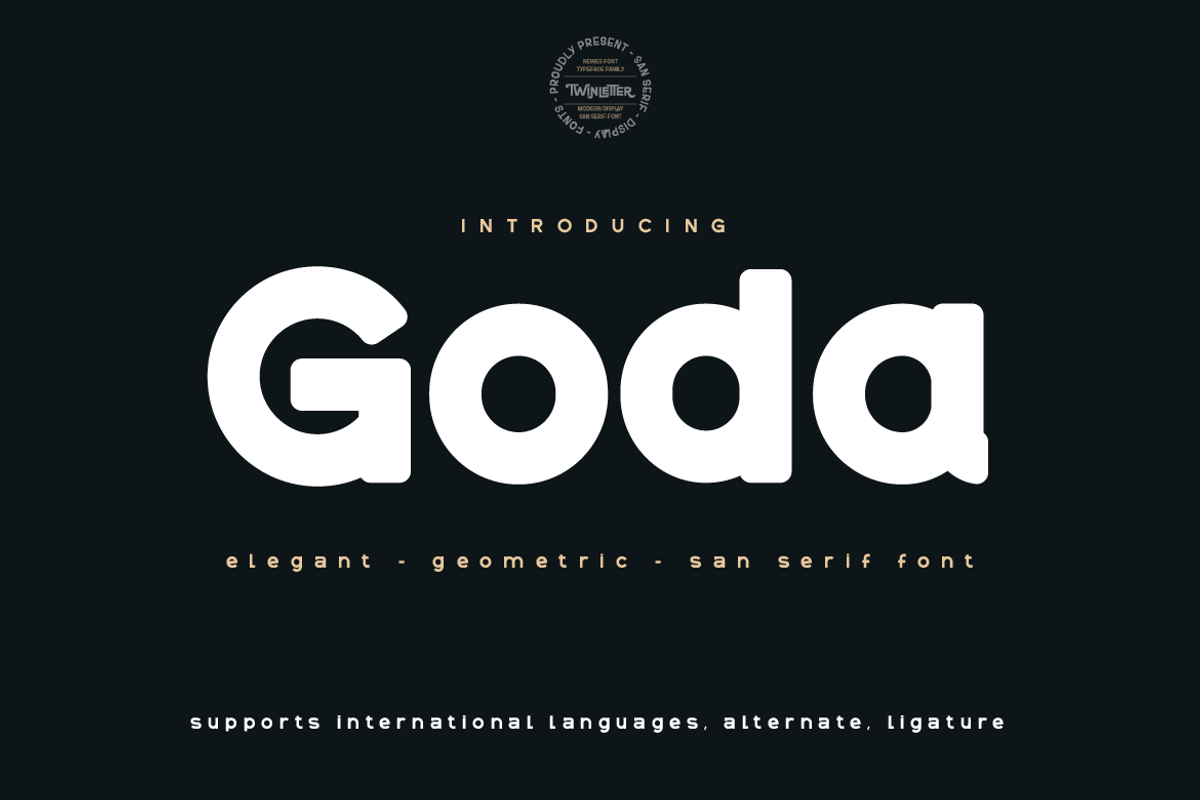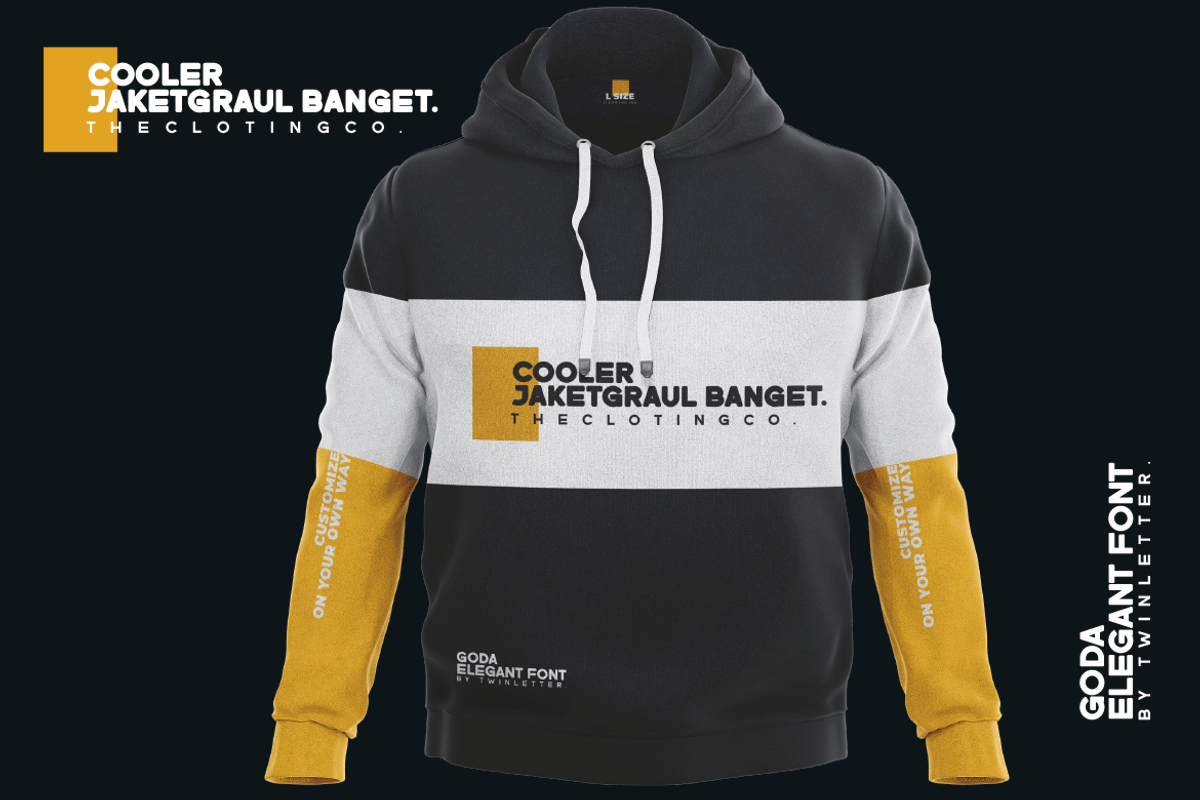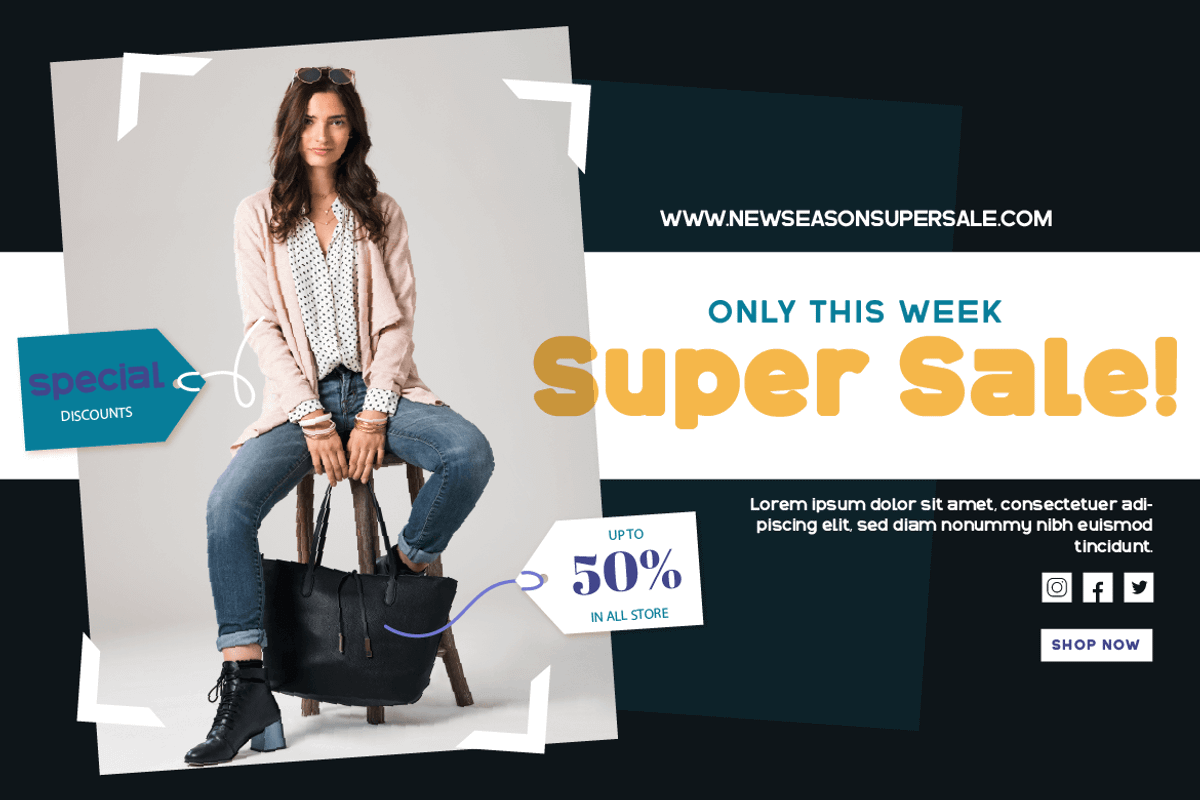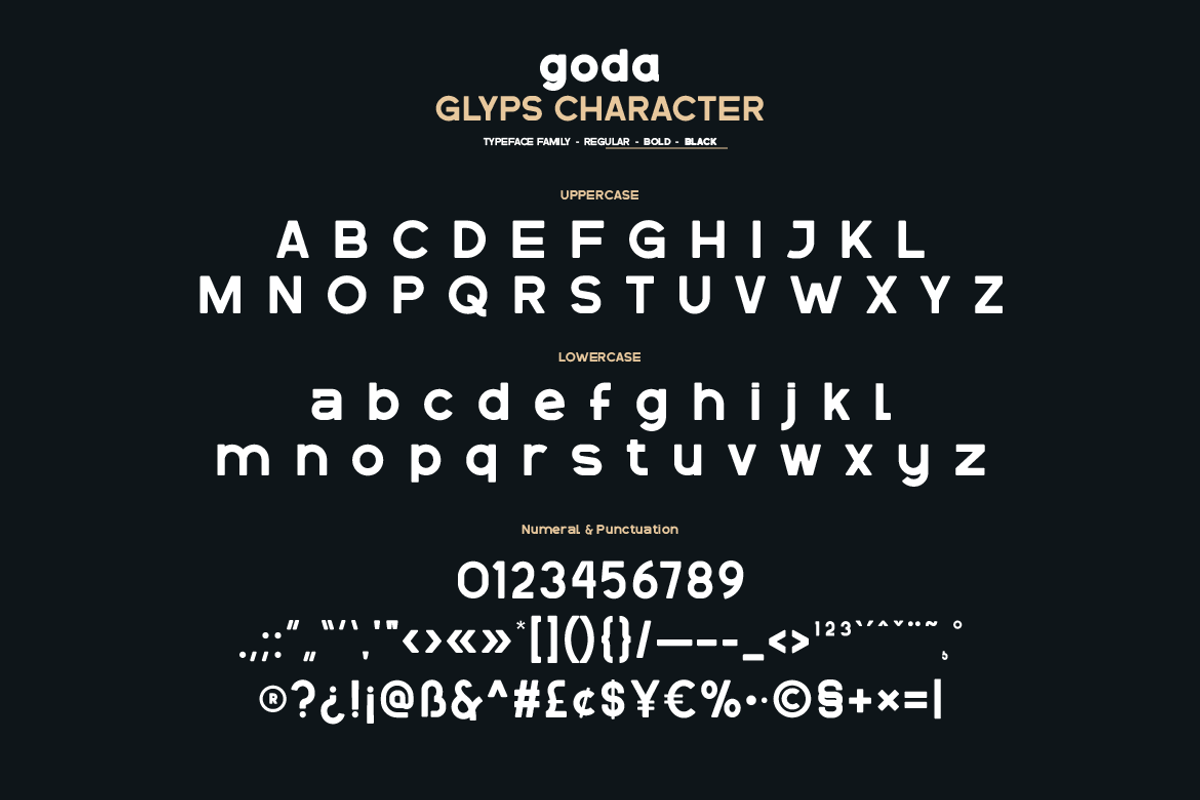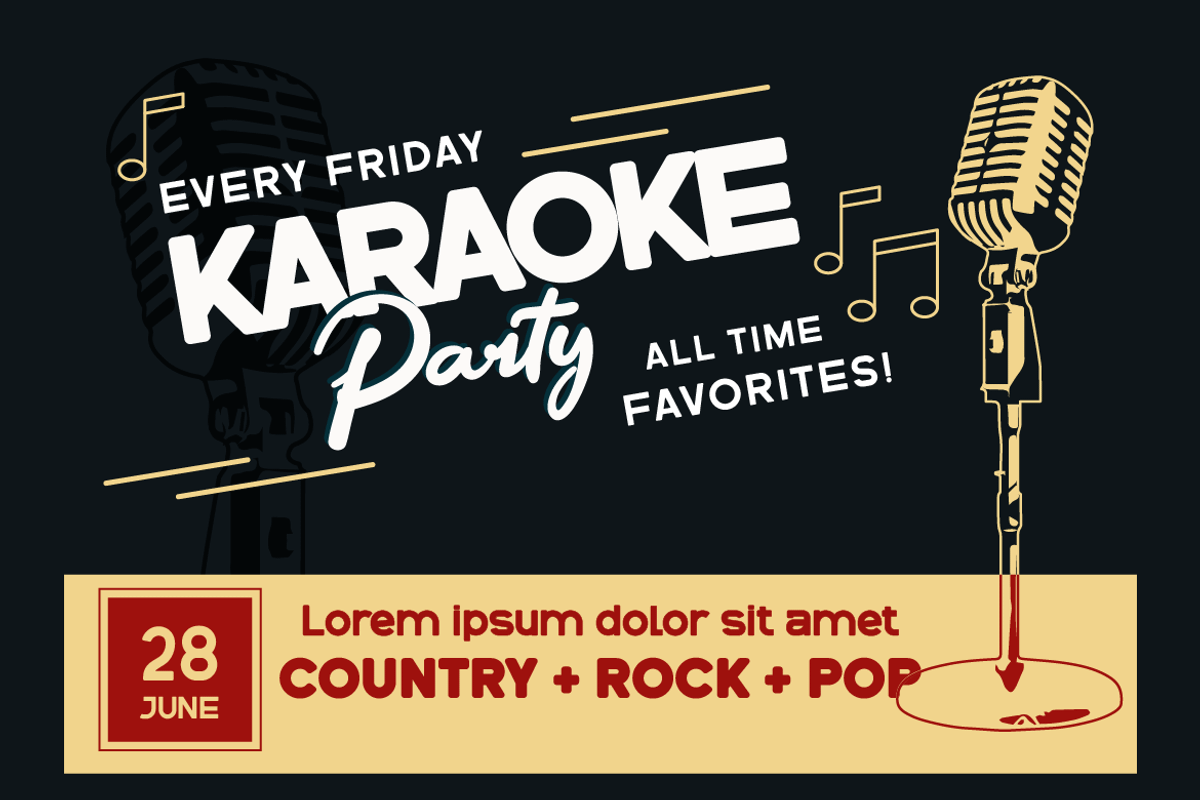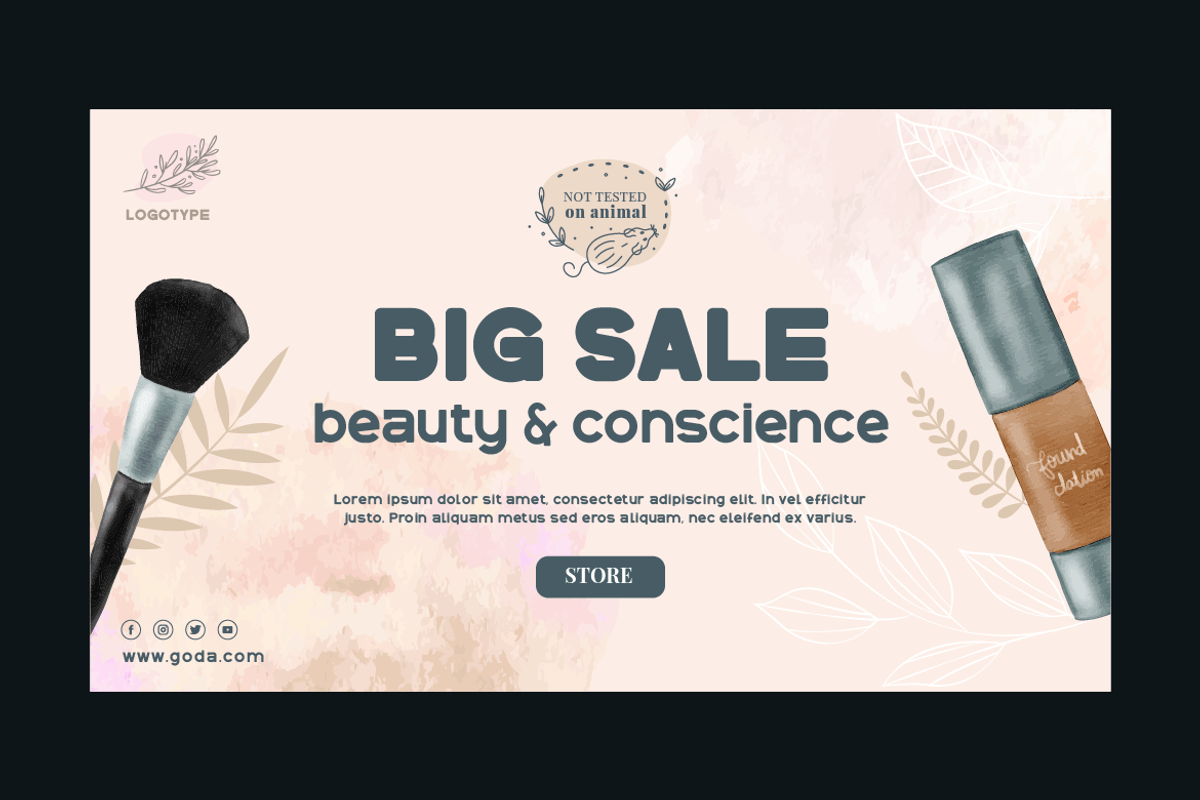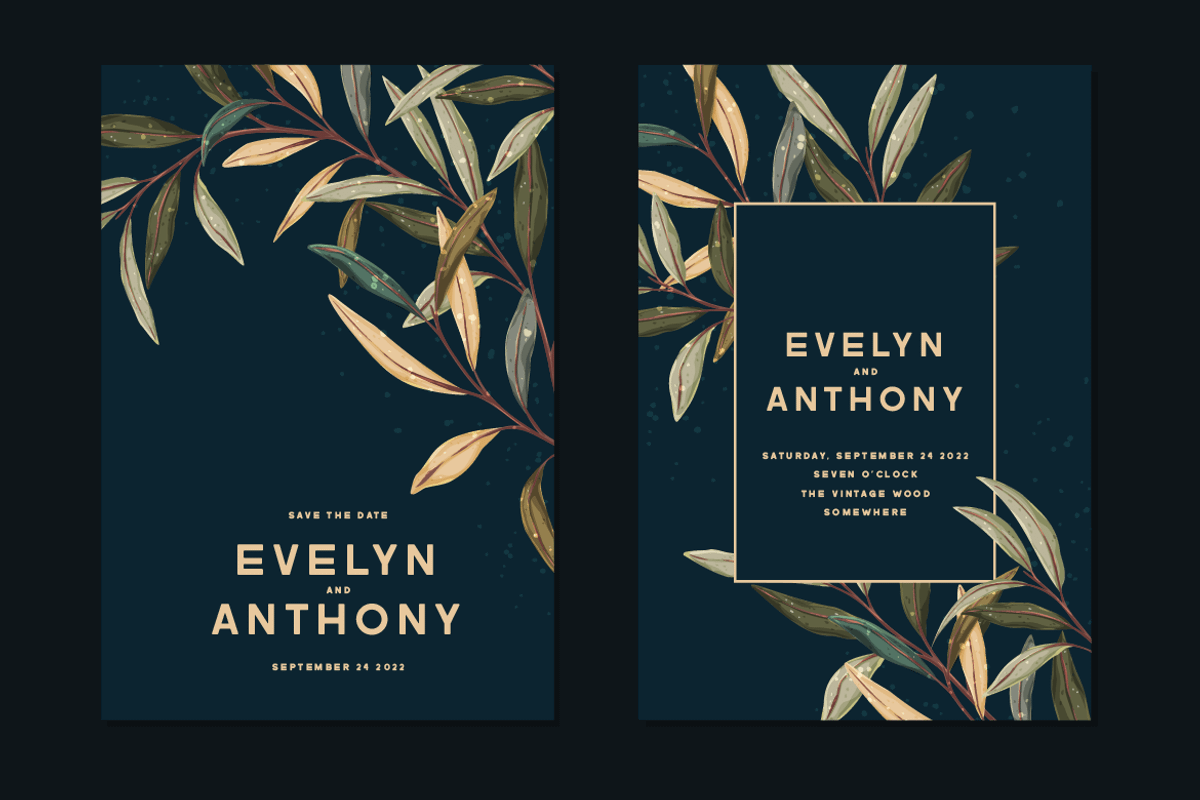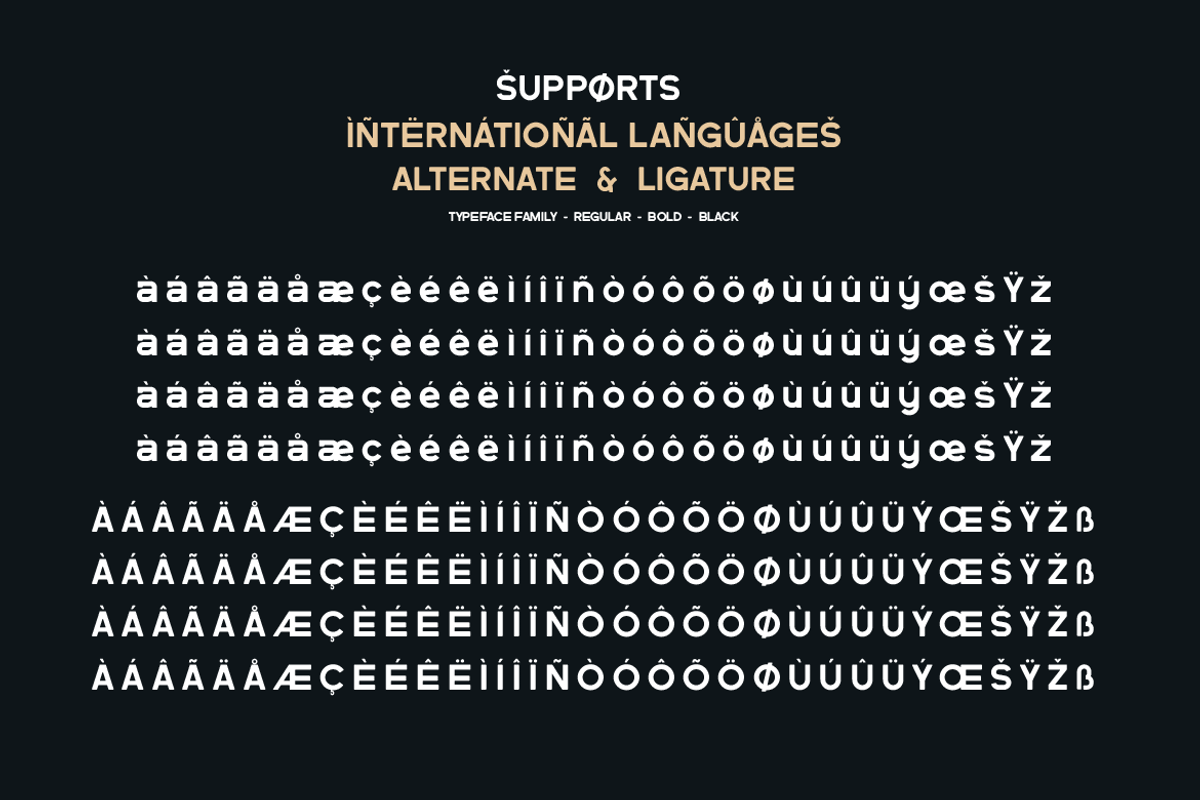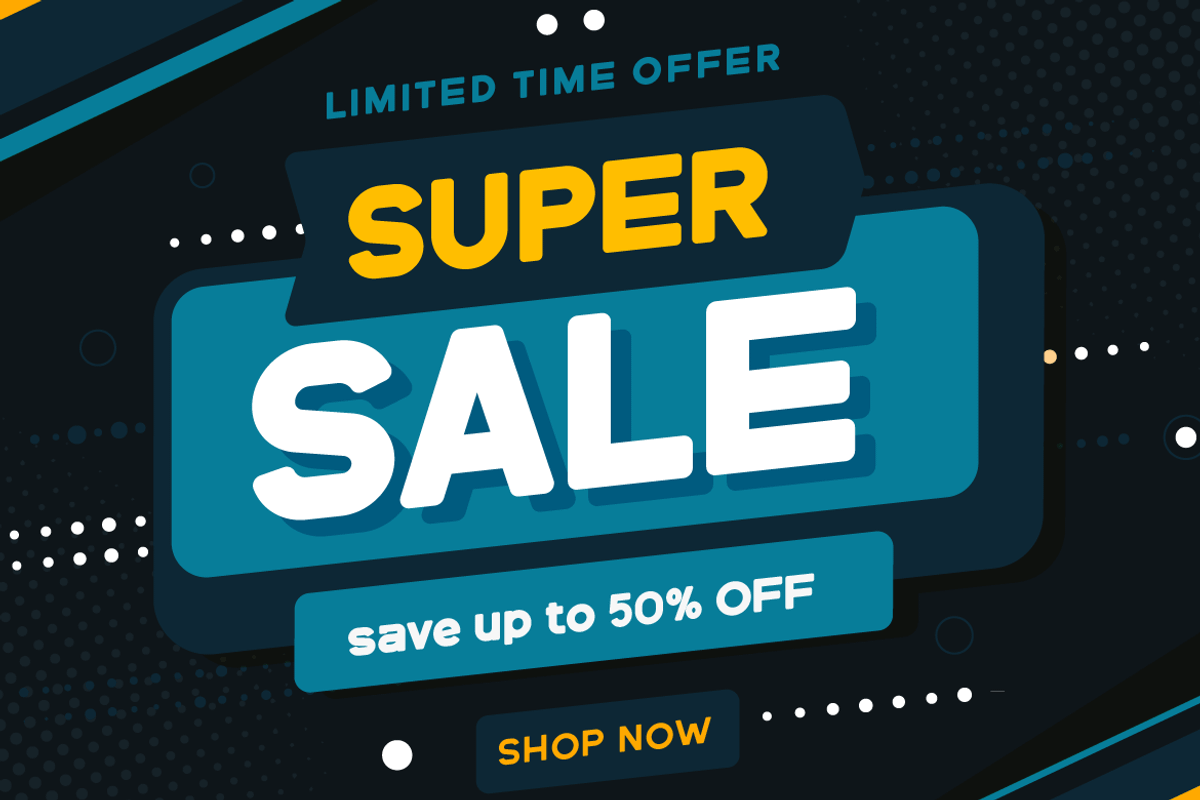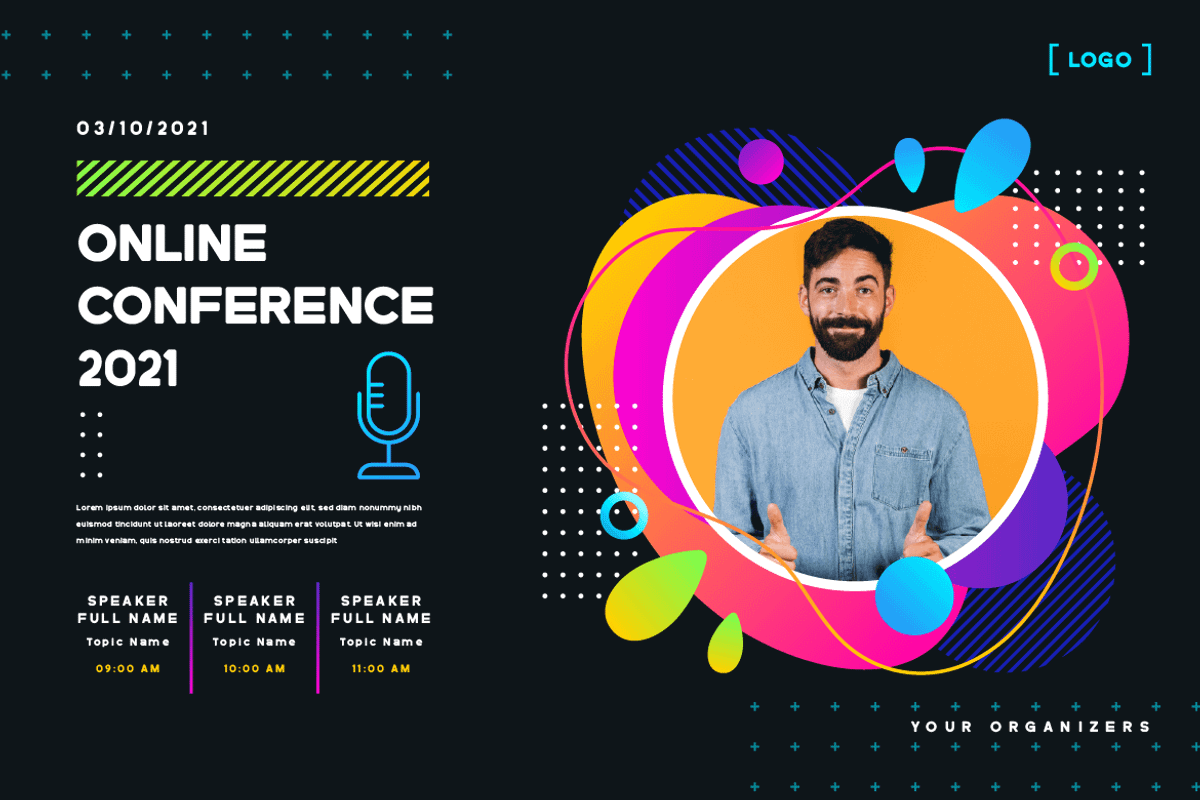
Goda
Introducing the sanserif font Goda
We design this very tempting and beautiful font with gentleness and yet still fit if you use it in various projects with masculine and feminine themes.
We designed this san serif family font by paying attention to the combination of each letter to create a beautiful impression and appearance, making it easier to answer your needs, both formal and non-formal needs.
This font is perfect for a wide variety of design projects, sporting events, branding, banners, posters, movie titles, food and beverage, technology, quotes, clothing, logotypes, and more.
Of course, your various design projects will be perfect and amazing if you use this font because this font comes with a font family, both for titles and subtitles and sentence text, start using our fonts for your amazing projects.